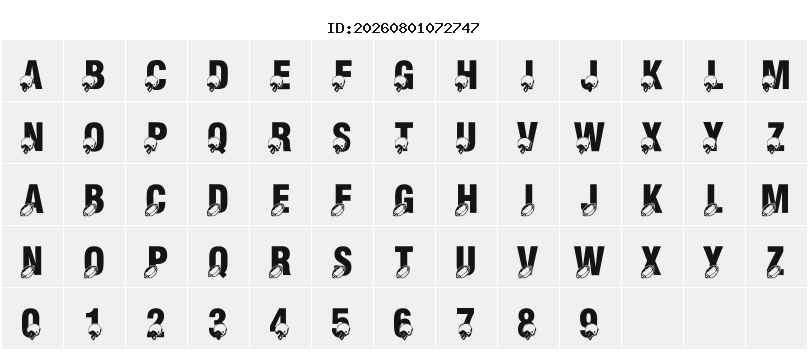
LMS Monday Night Football Preview
• Font Name: LMS Monday Night Football
• Font ID: Macromedia Fontographer 4.1 LMS Monday Night Football
• Full Font Name: LMS Monday Night Football
• Version: Macromedia Fontographer 4.1 12/14/2002
• PostScript Name: LMSMondayNightFootball
• Character Count: 75
About LMS Monday Night Football.ttf
LMS Monday Night Football.ttf is a modern, elegant sans-serif font designed for ultimate readability and visual harmony. Perfect for branding, headlines, web design, and print materials.